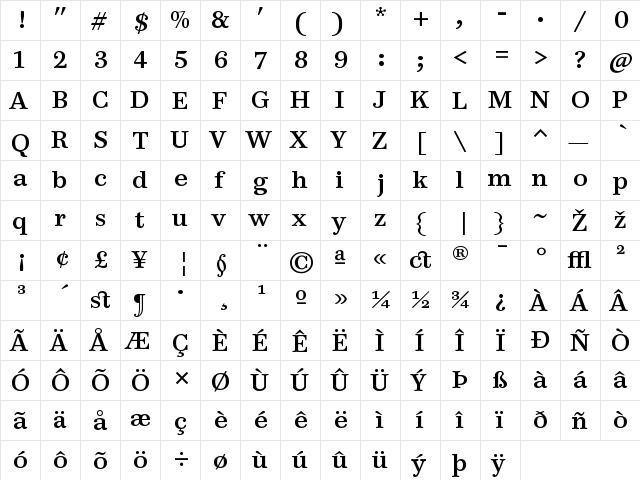
PB6TTP-RomanLF Regular
Design Context for PB6TTP-RomanLF Typeface
PB6TTP-RomanLF is a composed and adaptable typeface that performs quietly and consistently across a wide range of design contexts.